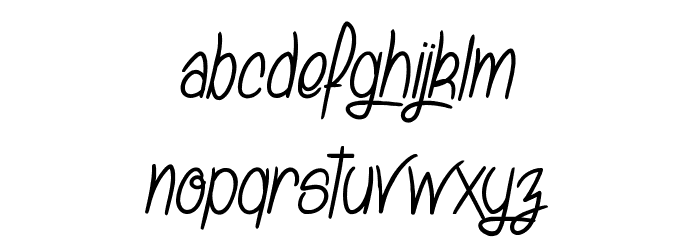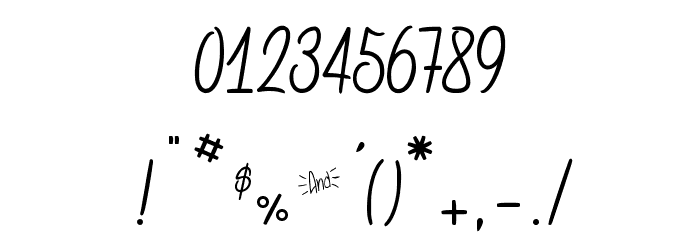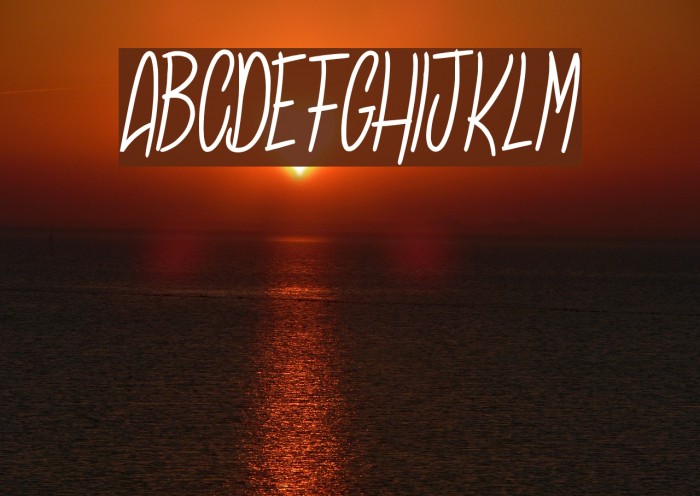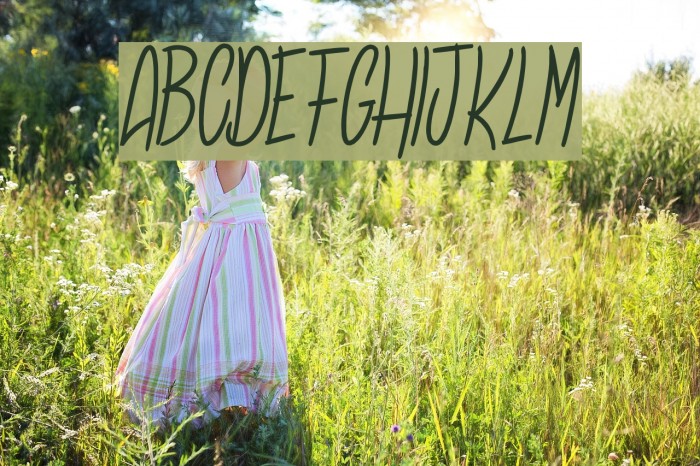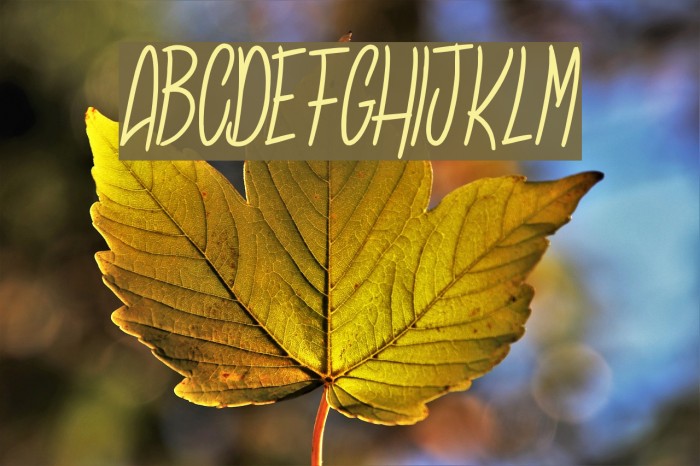
Sansaul Petronika Font
This font features a playful and dynamic handwritten style, characterized by its elongated and slightly slanted letterforms. The uppercase letters are bold and expressive, while the lowercase letters maintain a consistent flow with unique loops and curves. Numbers are clear and legible, matching the overall whimsical aesthetic. Special characters are creatively integrated, adding to the font's charm. The strokes are consistent in weight, providing a harmonious appearance across all characters. This font exudes a sense of fun and creativity, making it suitable for various informal and artistic applications.
A playful, handwritten font with elongated, slanted letterforms and consistent stroke weight.
- Proposed Projects: Ideal for greeting cards, children's books, playful branding, and creative posters.
- Overall Style: Playful
- Use Case: Logos, Posters, Informal Text